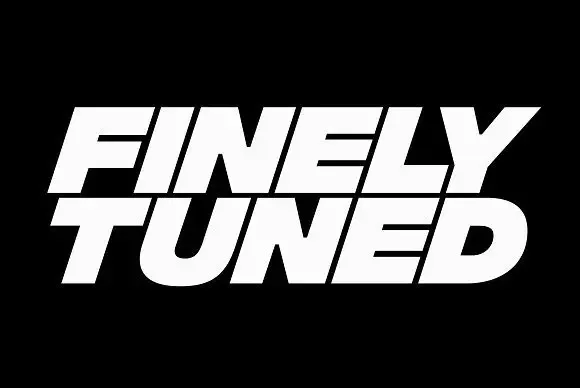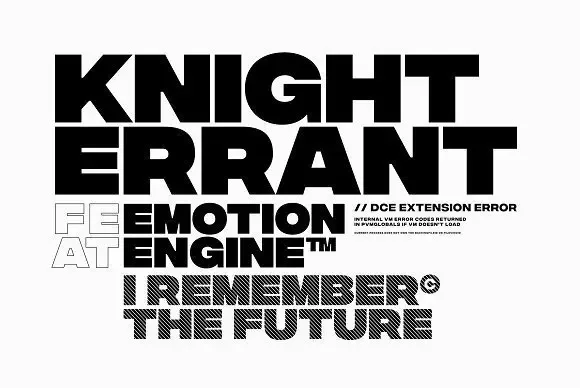
Integral CF Font is bold, unapologetic, and built to make a statement. Designed for Impact, this display typeface brings a modern industrial feel that's ideal for branding, posters, sports graphics, and bold headlines. Whether you're working on a high-energy campaign or need text that refuses to be ignored, Integral CF delivers punch and personality.
- Designer: Connary Fagen
- Released: 2016
- Style: Display sans-serif with geometric traits
This bold typeface was created by Connary Fagen, a trusted name in modern type design. Unlike typical minimalist fonts, Integral CF was made to stand out to speak loud and clear. It’s built for those moments when subtle just won’t cut it.
CF has the following features:
- Heavy, ultra-bold letterforms
- Strong vertical and horizontal strokes
- All caps with consistent width and proportion
- Excellent readability at large sizes
- Comes in six weights for flexibility in design
It’s a great choice when you need to command attention without sacrificing clarity.
Integral CF thrives in bold settings: think album covers, magazine titles, protest signs, or esports branding. It brings energy and attitude. To keep your layout balanced, pair it with something more toned-down like Roboto, Montserrat, or Source Sans Pro for your smaller text.